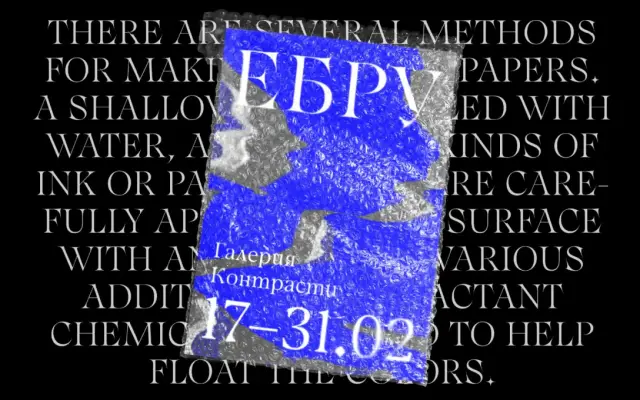
Gwen
Fontfabric · Pavel Pavlov, Plamen Motev · 2022
A high-contrast display serif from Fontfabric with separate Display and Text subfamilies, offered as a variable font covering seven weights.
Designed by Pavel Pavlov and Plamen Motev, Gwen splits into two optical subfamilies: Display, intended for headlines and posters, and Text, tuned for smaller body sizes. The family spans seven weights from Light to Black across both subfamilies, with a variable font also available. Extended Latin and Cyrillic coverage, alongside OpenType features including ligatures, stylistic alternates and old-style figures, make it serviceable for editorial and multilingual publishing work.
Gwen is a high-contrast serif with two optical subfamilies — Display and Text — designed explicitly for editorial and headline use, placing it clearly in the display serif tradition with transitional influences visible in its stroke contrast.